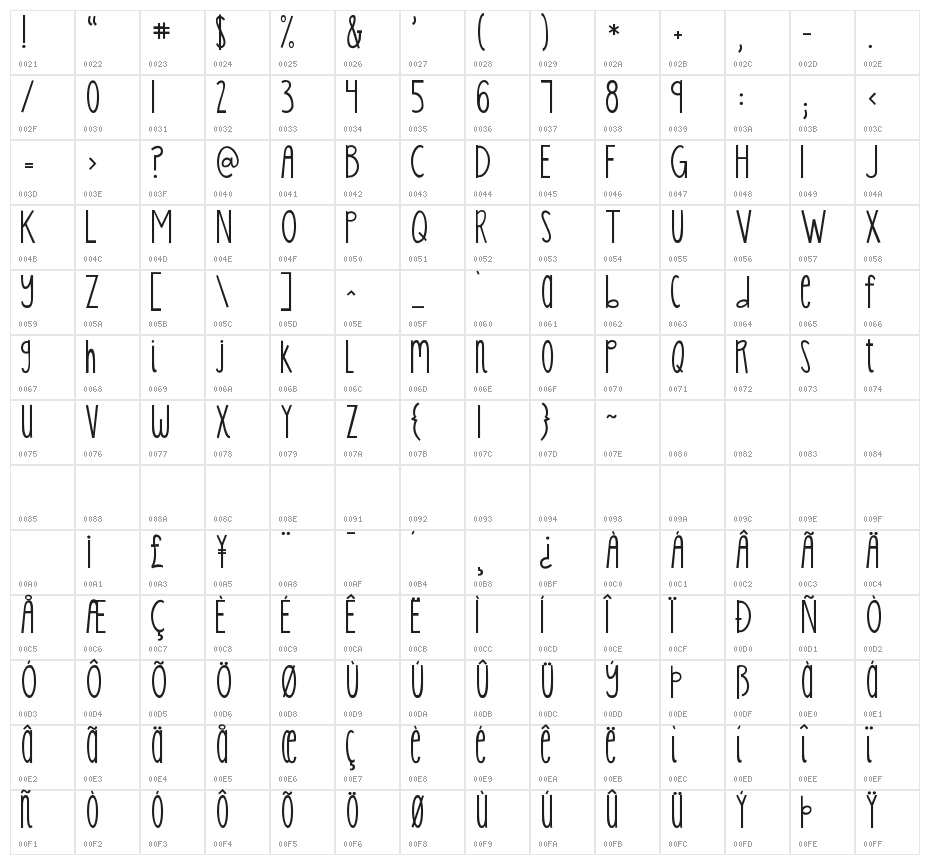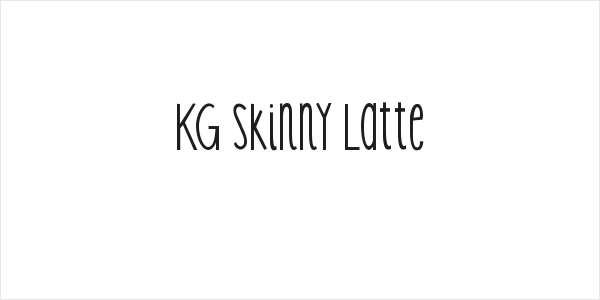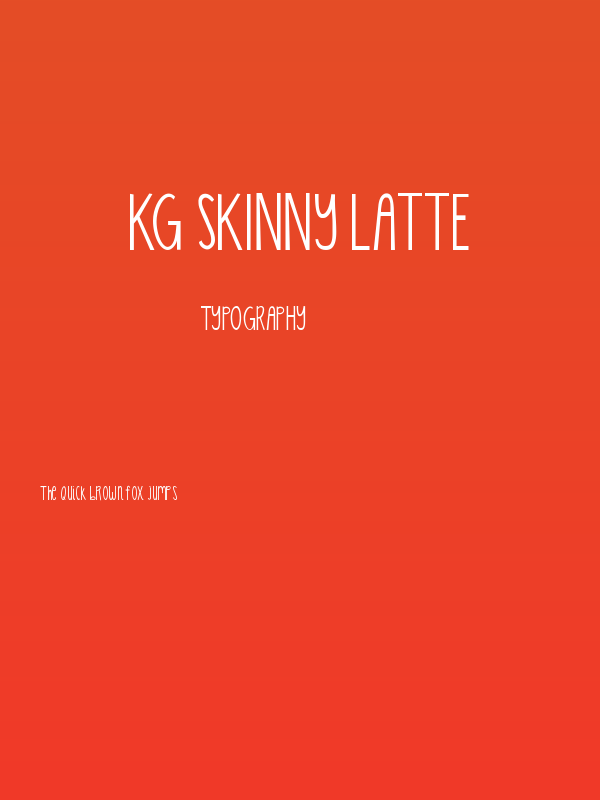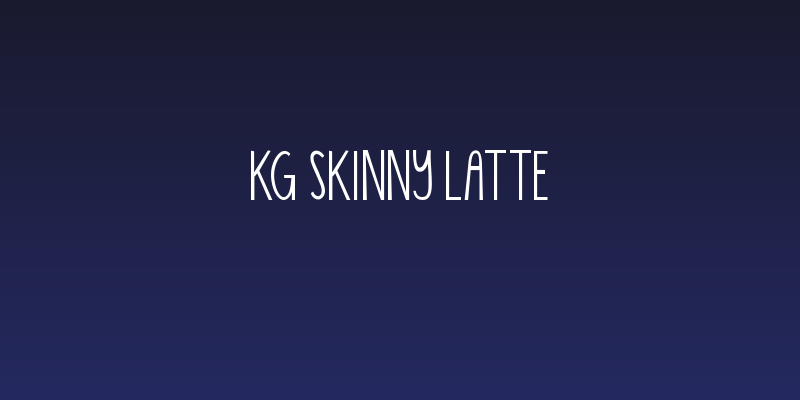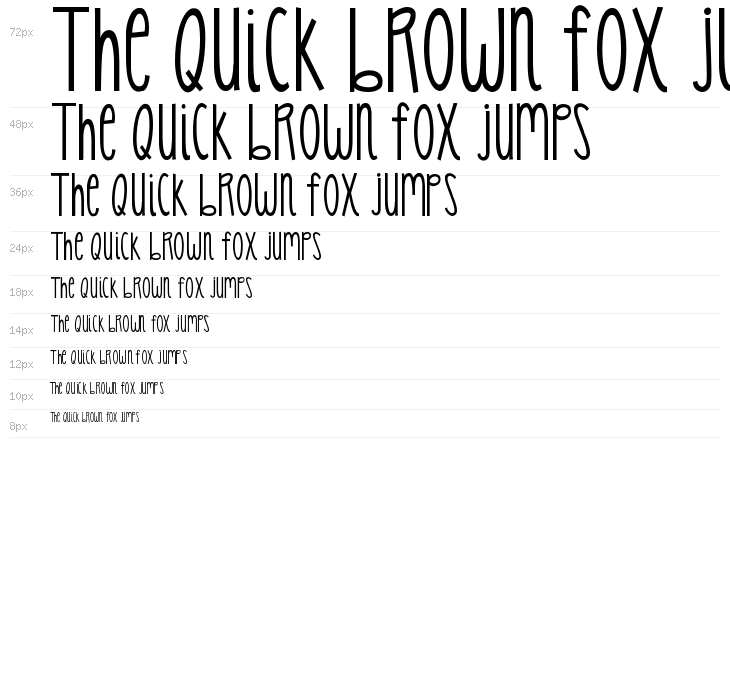
KG Skinny Latte Font
KG Skinny Latte Description
This font features a tall and slender design with elongated characters that give it a unique and modern appearance. The uppercase letters are particularly narrow, creating a sense of elegance and sophistication. The lowercase letters maintain this slender style, with some characters having playful loops and curves that add a touch of whimsy. The numbers are consistent with the overall design, maintaining the same narrow and tall proportions. Special characters are also included, each designed to complement the font's overall aesthetic. This font is ideal for projects that require a stylish and contemporary look, such as branding, invitations, or editorial design.
| Proposed Projects | Ideal for branding, invitations, editorial design, and modern-themed projects. |